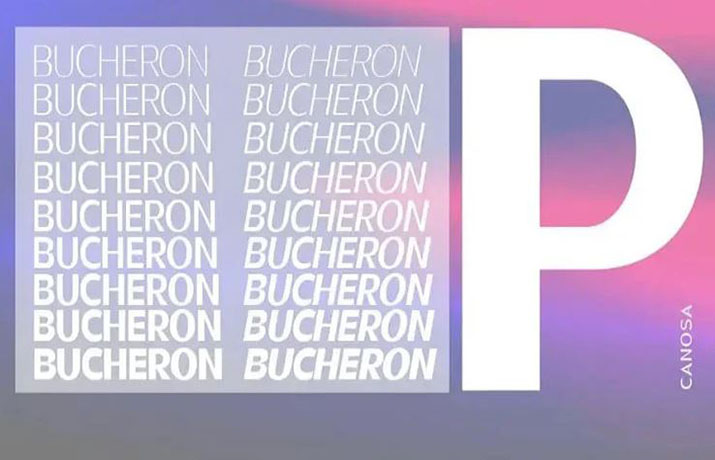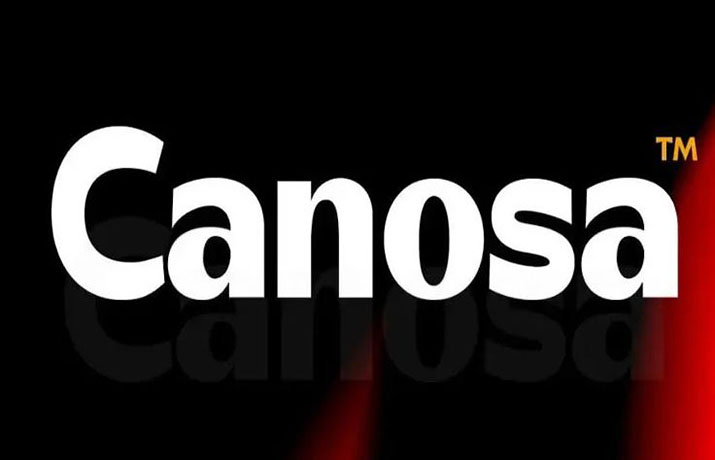
Canosa Font is a display sans serif typeface that has a modern and elegant style. It was designed and published by a famous independent foundry called Propertype Foundry.
It includes straight and slanted styles, each with seven weights ranging from thin to thick. Also, it maintains excellent readability even in small sizes, print, and digital projects.
Its elegant and contrasting style makes it a good choice for multiple creative projects including advertising, packaging, book and magazine covers, titles, descriptions, and much more.
“Canso typeface comes in 10 versions with italic styles along with Open Type features. This font includes 463 unique glyphs and 17 ligatures. Additionally, it also supports 89 multilingual languages.”
| Style: | Sans Serif, Display, Modern |
- The greatest option for headlines, web content, posters, brochures, flyers, logo design, book covers, quotes, paragraphs, and more is this premium quality font. It can also be used for business cards, special event cards, flyers, social media banners, headers, YouTube thumbnails, signs, titles, and textual motives, among many other things.
This font supports 89 languages.